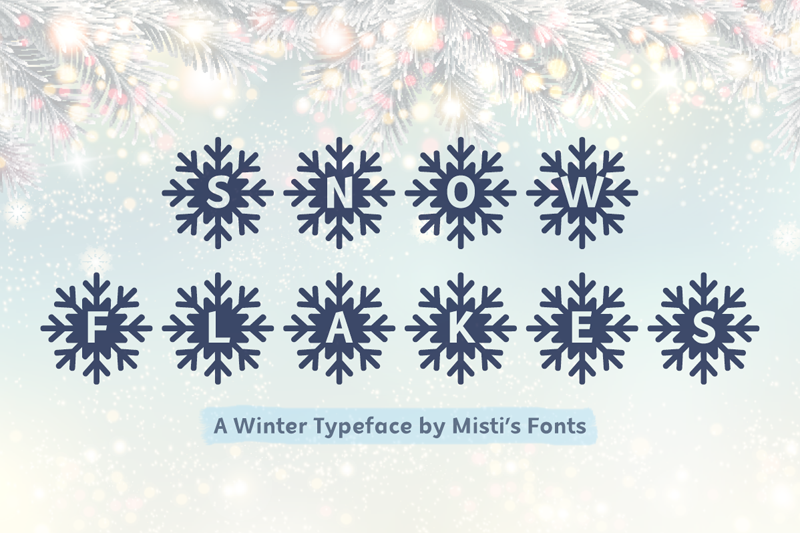
MF Snowflakes is a fun, winter-themed typeface that was carefully handcrafted to create lovely, customized designs. This festive font is perfect for creating Christmas gift tags and Holiday greeting cards. You can also create stunning, personalized gifts and products, including coffee mugs, cute monogram stickers, stylish tumblers and so much more! Whether you are a hobby crafter or an Etsy shop owner, this font is ideal for you! Terms Of Use and Commercial Licensing: https://mistifonts.com/mf-snowflakes/ |